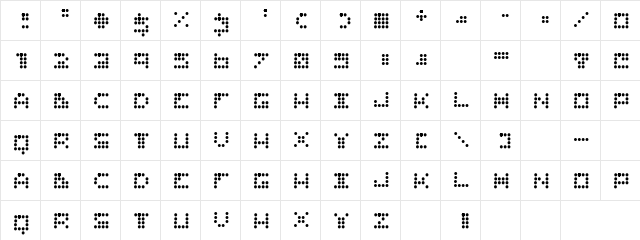
Routine Regular
Design Context for Routine Typeface
Routine is a composed and adaptable typeface that performs quietly and consistently across a wide range of design contexts.